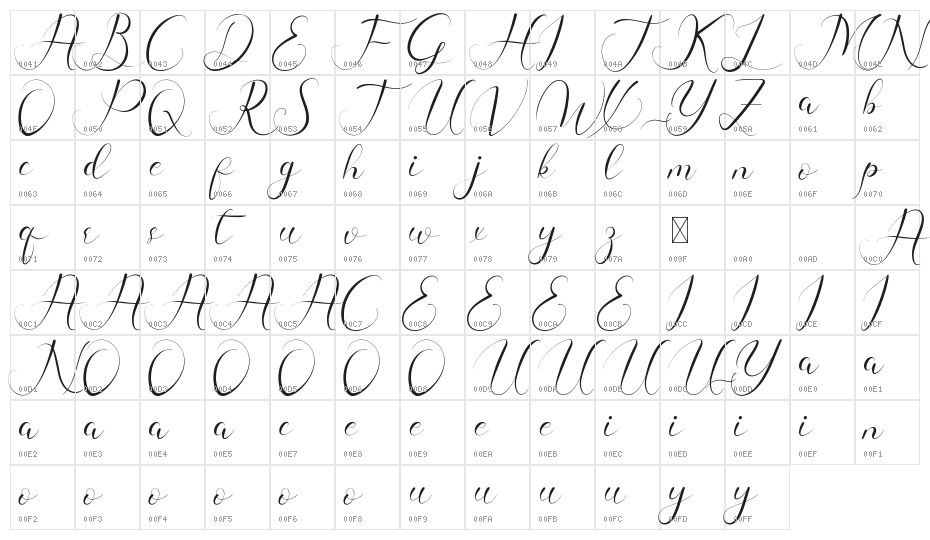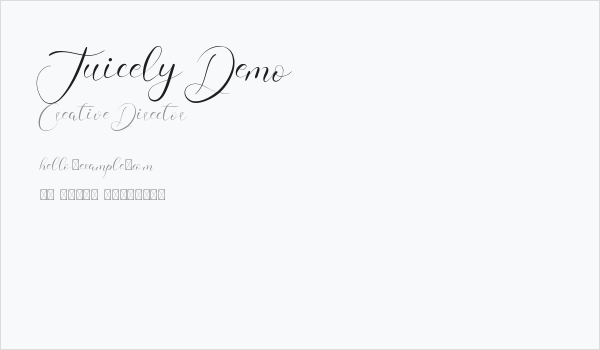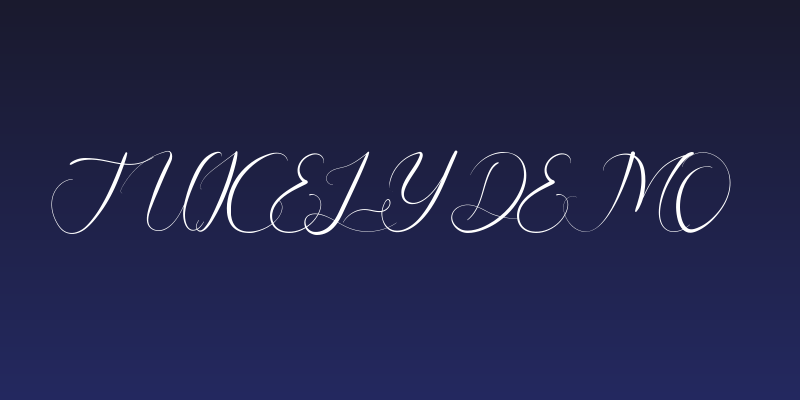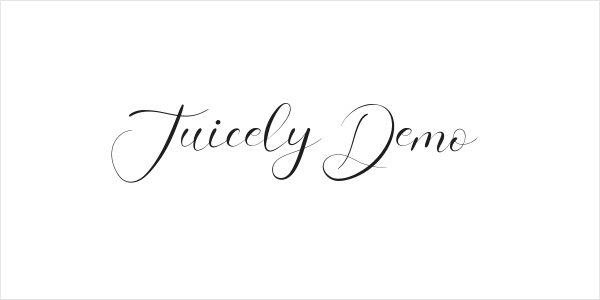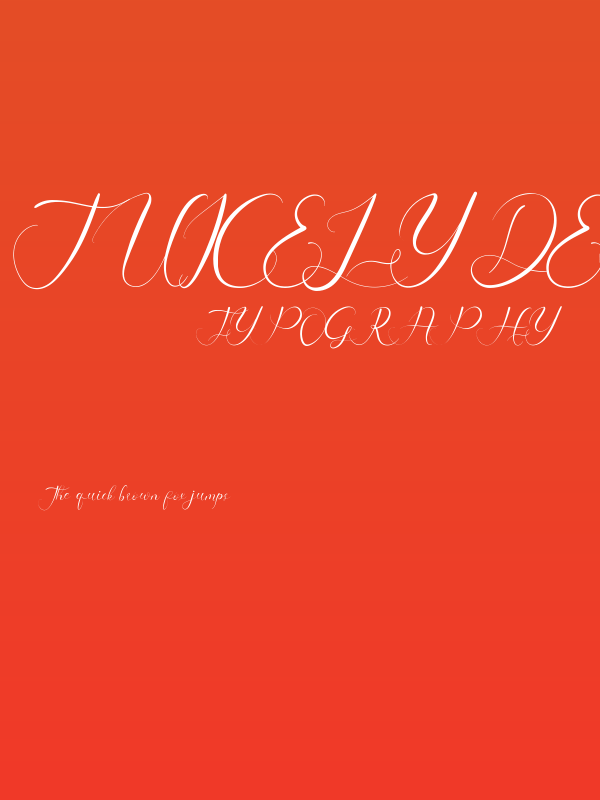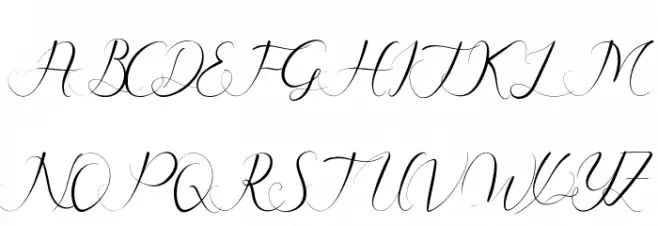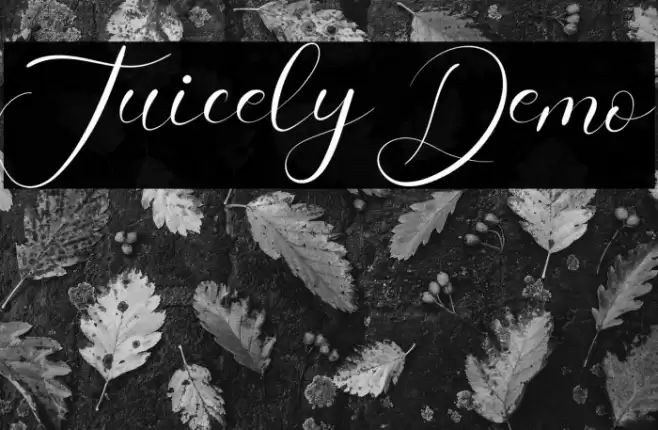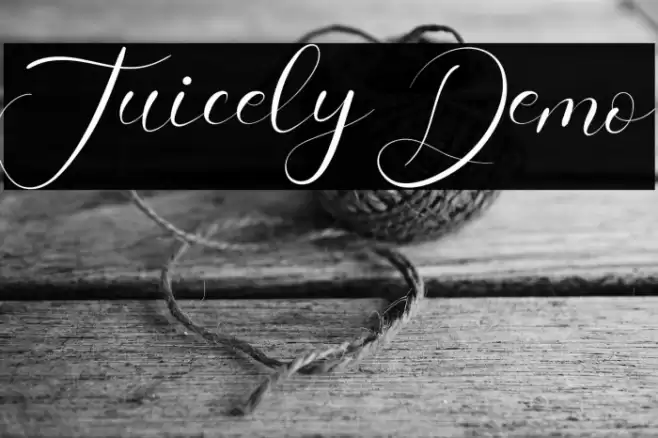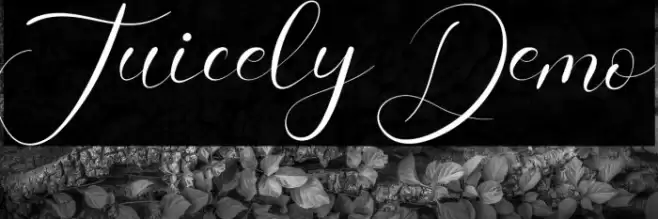
Juicely Demo Font
This elegant script font features flowing, interconnected letters with a refined and sophisticated appearance. The uppercase letters are characterized by their graceful loops and swashes, adding a touch of luxury and flair. The lowercase letters maintain a consistent style, with smooth curves and delicate lines that create a harmonious flow. The font's overall design is both classic and contemporary, making it versatile for various design projects. The thin strokes and high contrast between thick and thin lines enhance its readability while maintaining an artistic flair. This font is perfect for creating a sense of elegance and sophistication in any design.
| Overall Style | Elegant, Sophisticated |
| Proposed Projects | Ideal for wedding invitations, luxury branding, elegant stationery, and high-end product packaging. |